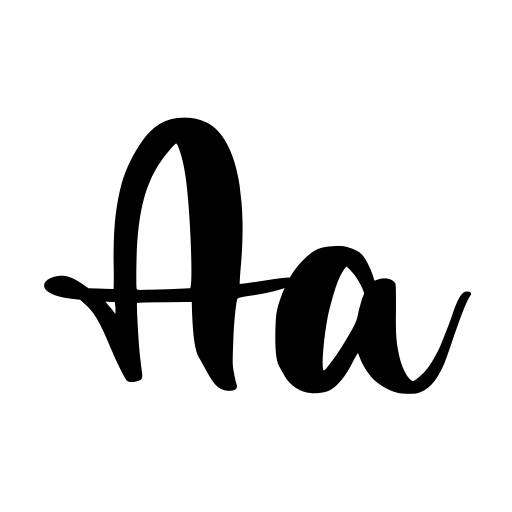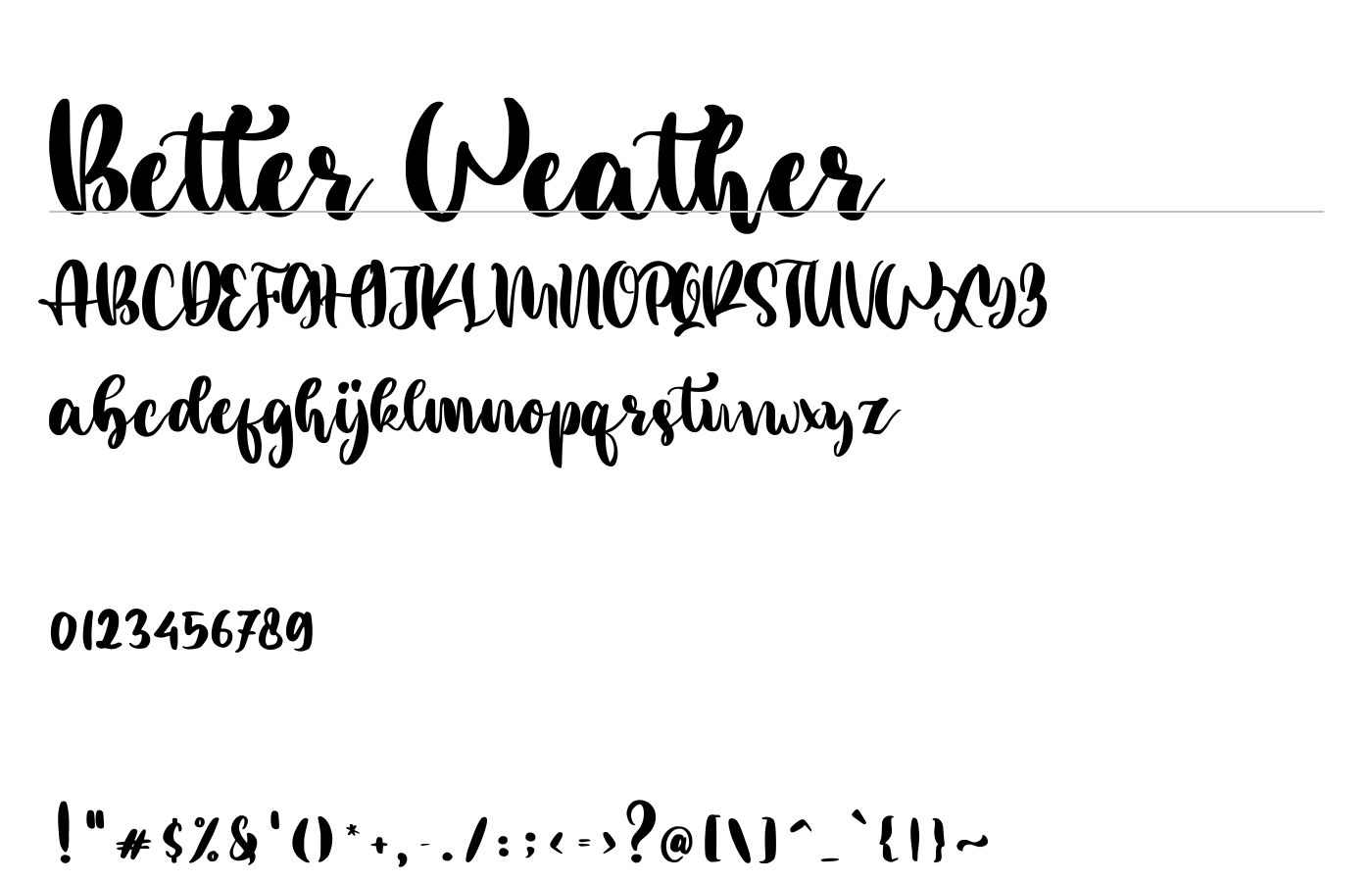
Better Weather is a lively and charming script font with bold strokes and playful, flowing curves that give it a warm, handcrafted feel. Its smooth, casual style works beautifully for branding, invitations, and creative projects that need a friendly yet confident touch. Ideal for headlines and logos, this font adds personality and a welcoming vibe without sacrificing readability.
Better Weather Font